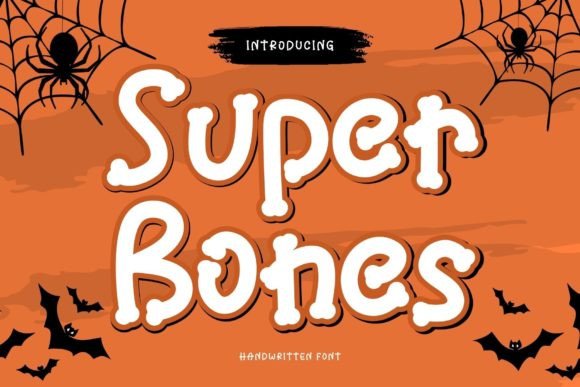
Journey into the captivating world of Super Bones Font, a decorative masterpiece that dances between the realms of fear and delight. This playful and authentic font is your secret weapon for crafting unforgettable Halloween projects, blog posts, logos, branding, ads, invitations, and beyond.
Crafted by the ingenious Brown Cupple Fonts, Super Bones Font exudes a raw energy that breathes life into your creative endeavors. Let your imagination run wild as you design invitations that send shivers down spines, logos that capture the essence of the supernatural, and blog posts that send readers on a thrilling adventure.
With Super Bones Font as your companion, your designs will radiate with an otherworldly charm. Picture the spine-tingling effect of a Halloween invitation adorned with this eerie font, promising a night of thrilling frights. Or envision the impact of a logo that utilizes this font, evoking a sense of mystery and intrigue that draws customers in like moths to a flame.
But Super Bones Font's enchantment extends far beyond the realm of Halloween. Its versatility knows no bounds, lending its unique character to an array of projects. Create greeting cards that deliver heartfelt messages with a touch of spookiness. Design planners and photo albums that capture life's precious moments with a hint of the macabre. Transform decorations into haunting displays that set the mood for unforgettable gatherings.
Unleash your creativity and embrace the power of Super Bones Font. Let it guide you as you craft designs that mesmerize, captivate, and leave a lasting impression. Dive into the realm of the extraordinary and elevate your projects to new heights of brilliance.